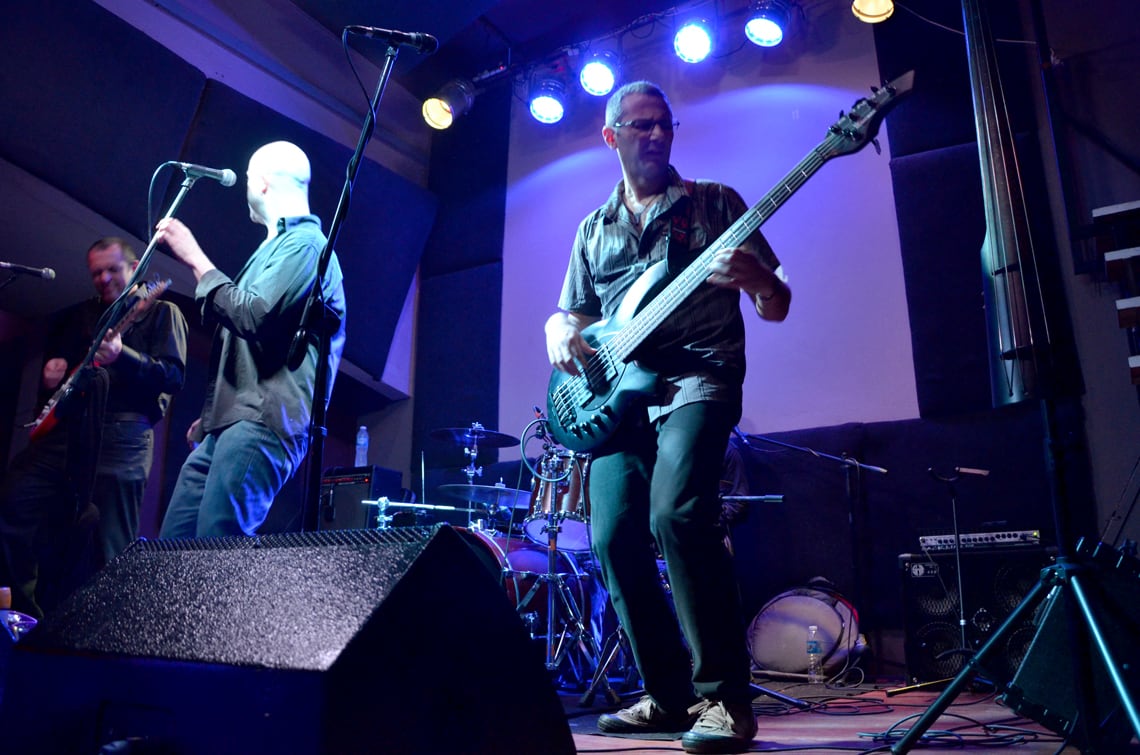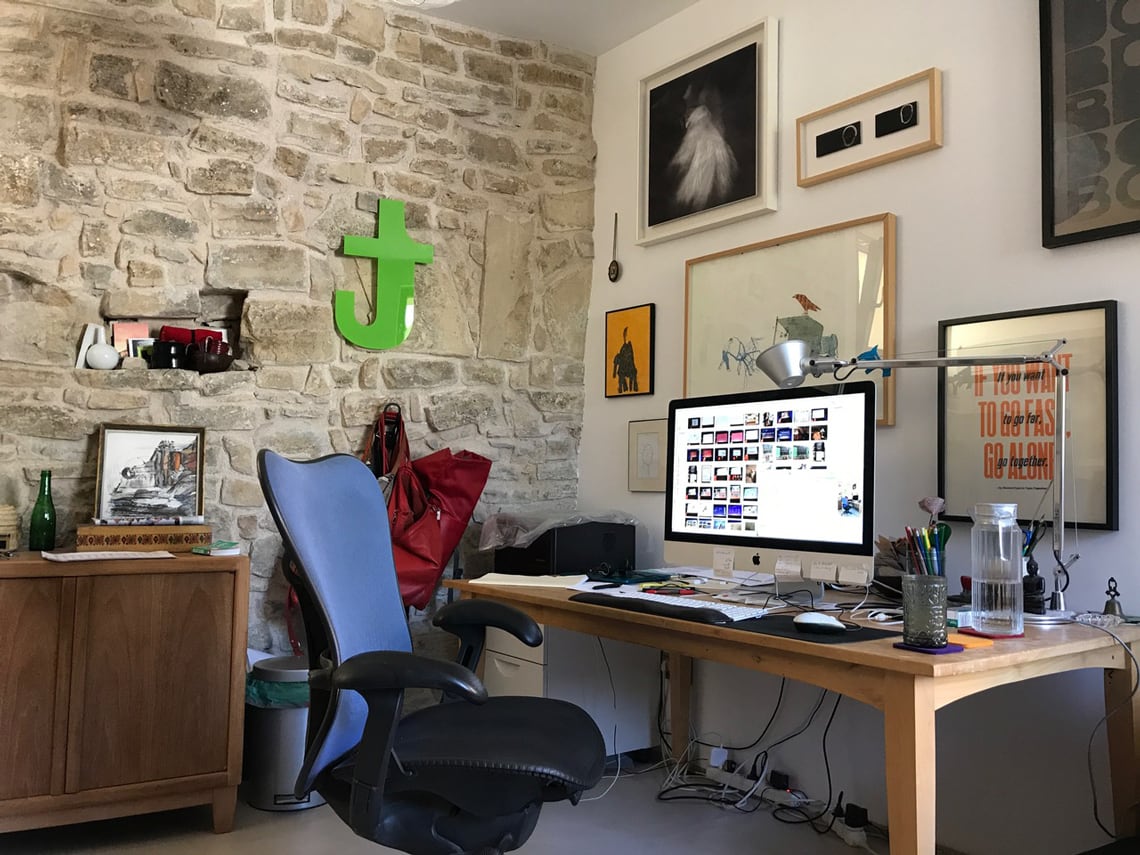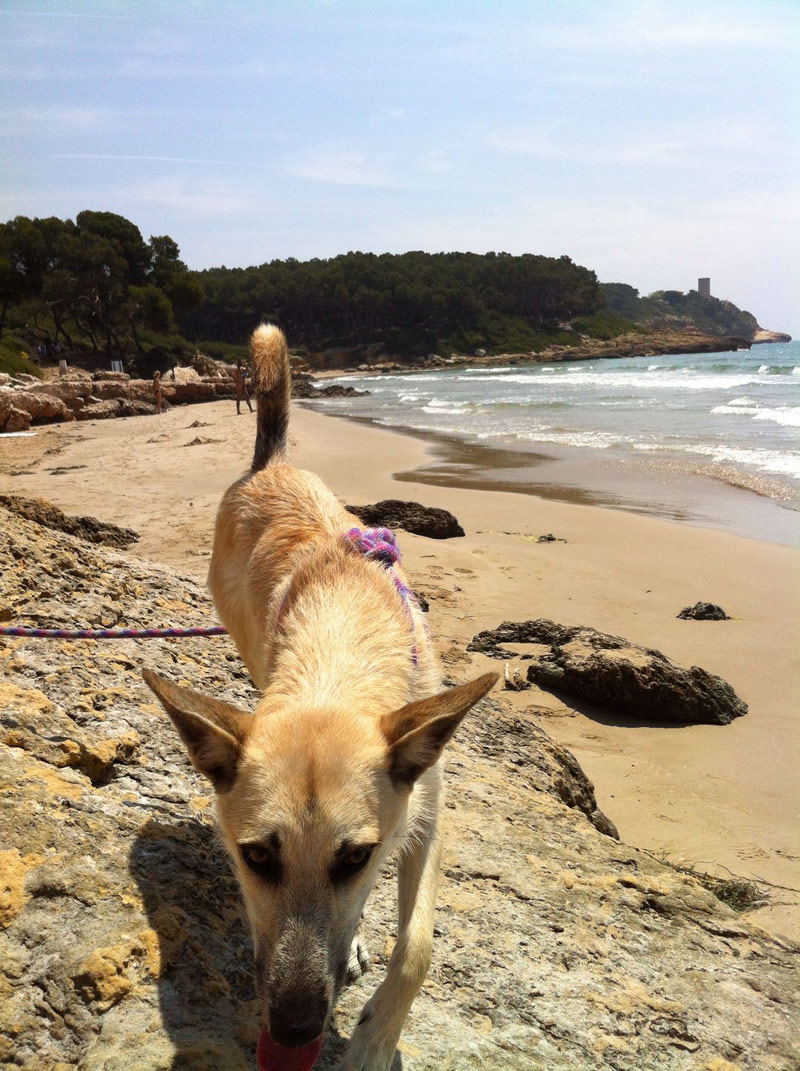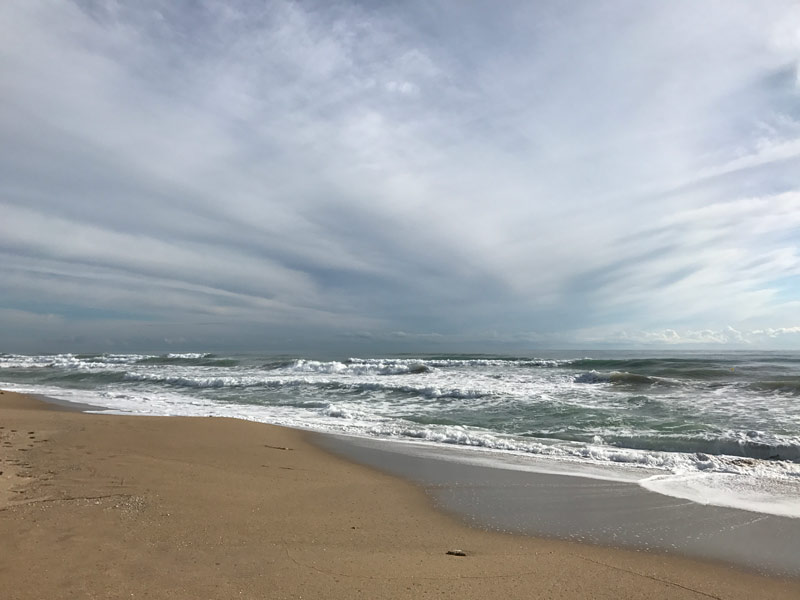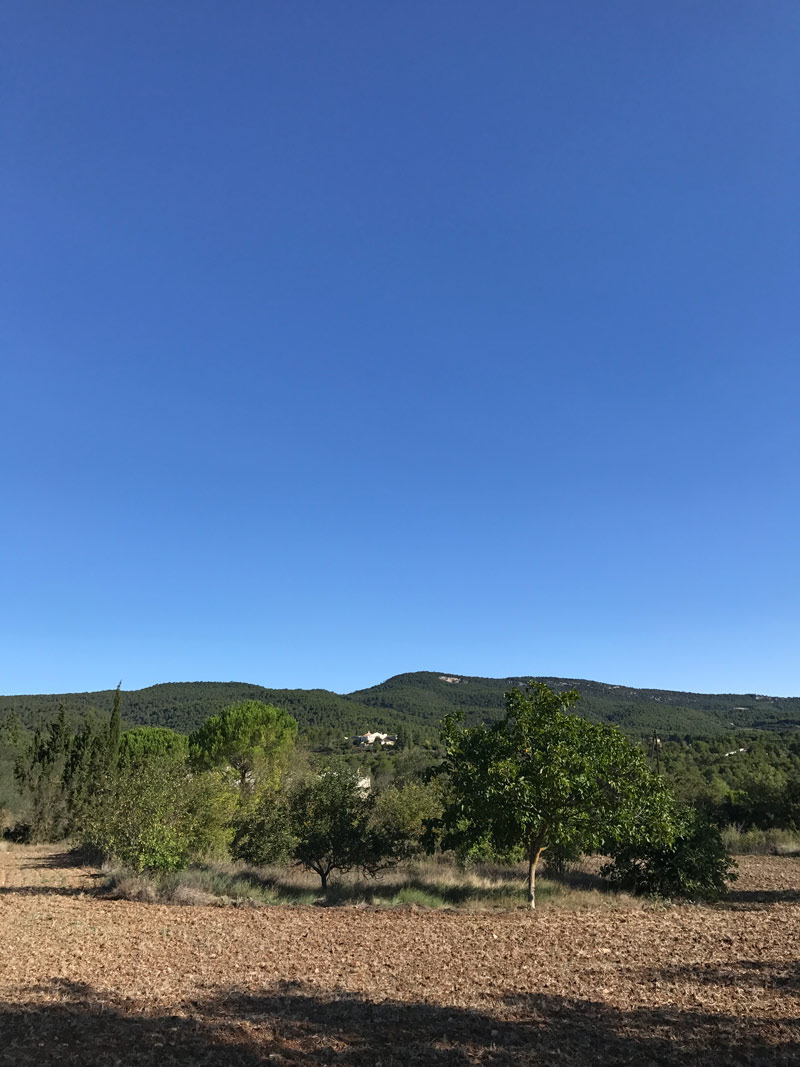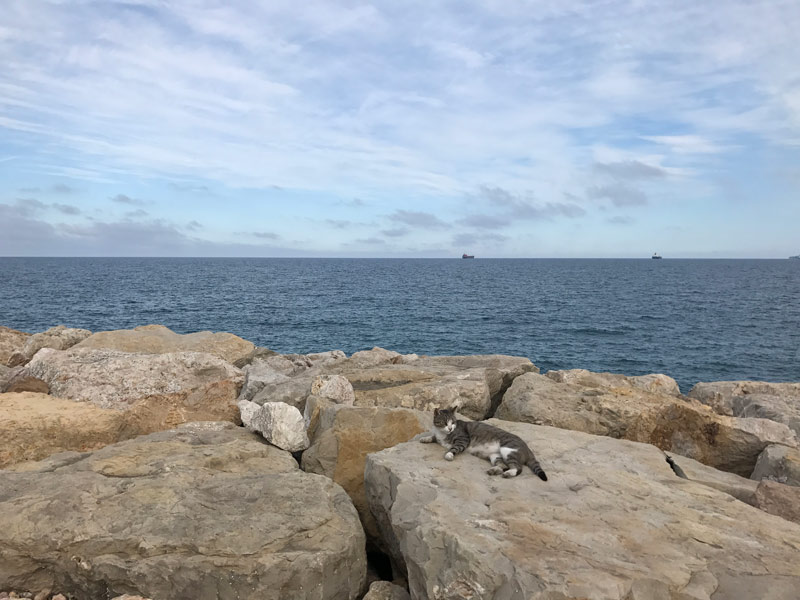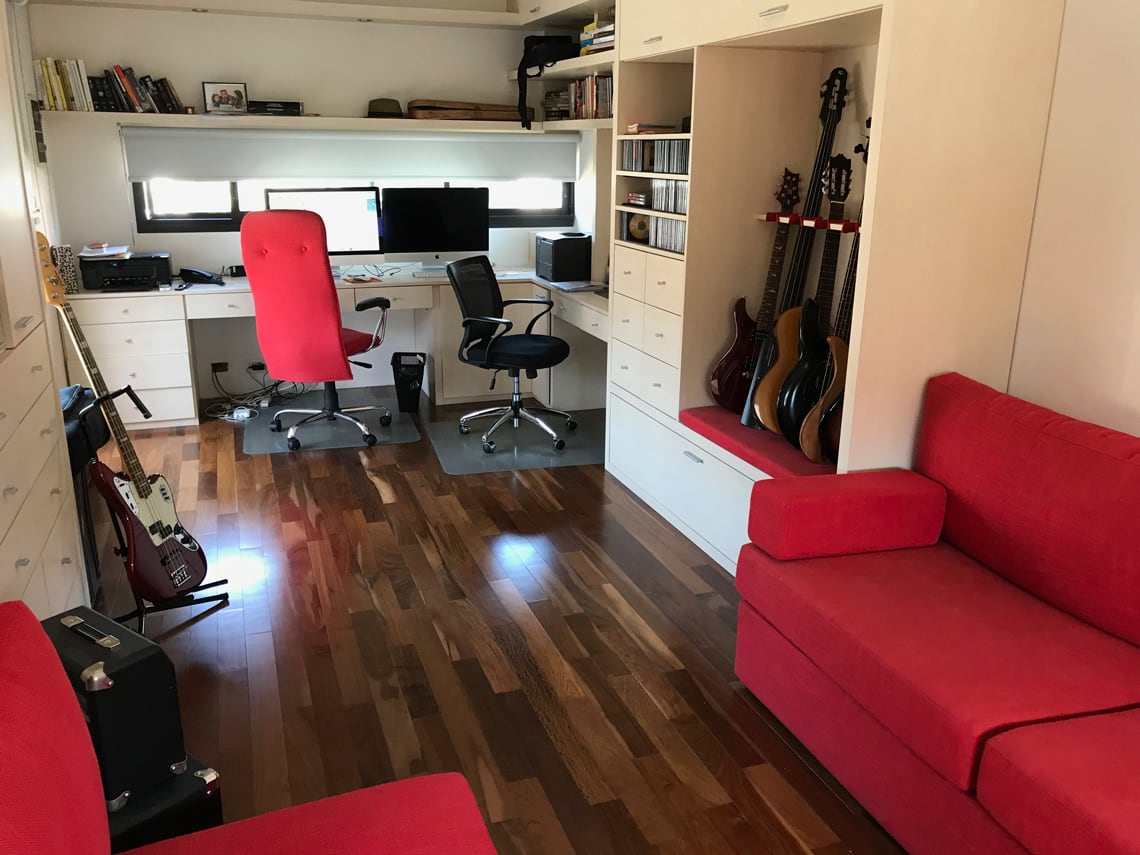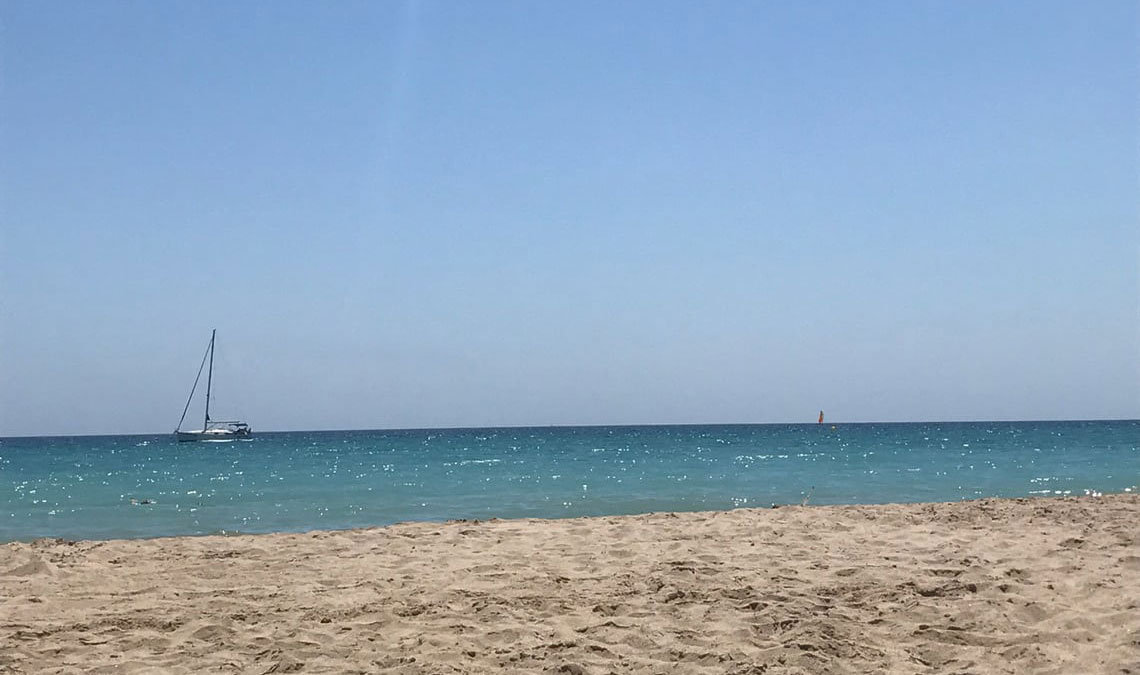
Meet Veronika and José
José Scaglione and Veronika Burian are TypeTogether’s multitalented founders. From diverse backgrounds they entered the world of typefaces and were immediately awarded for the thoughtfulness of Athelas and Maiola, and the comprehensiveness of Abril, Portada, and Tablet Gothic. Their catalogue has provided headlines for discerning designers and the voice of respected international brands. But the professional successes are only part of the story. It’s only fair to continue our team introduction series by highlighting the company’s co-founders.
Veronika Burian
Veronika is, with José, the founder of TypeTogether. She designs, organises, answers countless emails, and takes care of all of us. Despite having indecipherable handwriting, she has designed, according to her friends, one of the most beautiful calligraphic typefaces — Maiola. If she’s teaching, she’s moving; gesticulating is as automatic as breathing to her. And if she’s travelling, it’s probably because she’s preparing to teach or exploring on holiday.
Veronika is a rare breed: a true traveller who betters herself by discovering others; an instinctual designer; an active woman who loves climbing, hiking, and swimming; and an animal lover, especially of her wonderful dog Zappa.
1 · Where is your office located?
In Munich and the countryside close to Santes Creus, Cataluña.
2 · In what countries or cities have you lived?
Czech Republic, Germany, Austria, Italy, UK, USA, and Spain. I’ve been quite fortunate to see many places around the world.
·  What kind of music do you listen to, if you do, while working?
Jazz, psychedelic rock (’60s/’70s), and funk.
·  Who is your everyday hero?
People who live consciously and with principles and are prepared to make sacrifices to turn this earth into a better place for everyone.
·  What are your love/hate glyphs when designing?
I like to draw ‘k, a, s’ and have quite a dislike for the numeral 2.
·  What is your hobby when not designing fonts?
I don’t have a hobby as such, but I go climbing, swimming, hiking, dancing, and do felting and photography.
·  You have one opportunity to do something different in your life. What do you choose?
Contemporary dance performing artist, or photographer.
·  What is your favourite word?
Seelenruhe, which approximately means “calm of the soul”.
· What is the most amazing script you have worked with and why?
I would not say Armenian is the most amazing script, but I do have some inexplicable affinity for it. It might relate to my eastern roots, or my last name that is supposedly Armenian from a long time ago, or… many other reasons. It’s something I can’t put into words.
Zappa.
View on the morning walks with Zappa.
Beach life in Tarragona.
Vik’s ’messy desk’ at her home studio. The backwards 't' was discarded by a London sign maker as wrongly made. It has been with her ever since.
José Scaglione
José Scaglione is the other talented founder of TypeTogether. He has a habit of changing his title every few months, and it’s always somehow a mix of sci-fi references and font nerdiness. He loves to have a few hours for open air grilling and, as far as business goes, is more into asking questions than forcing agreed answers.
1 · Where is your office located?
My studio is on the top floor of my house. If I am late, it means there was a traffic jam on the stairs.
2 · In what countries or cities have you lived?
Argentina, UK, and USA.
·  What kind of music do you listen to, if you do, while working?
That depends on the kind of work I am doing. For general design and administrative work, I like listening to anything from soul and funk to rock. But I prefer complete silence when I research or write.
·  Can you name three fonts you love that were designed by others?
Of course I can’t! I am a type designer. There’s some kind of etiquette rule against that.
·  What are your love/hate glyphs when designing?
For a long time I argued that there were many reasons why ‘a’ should be one of the first glyphs to be designed. I argued that it has a very high repetition rate in most languages, that it has features that can be translated to other glyphs, and that it was complex enough to test how bold a font can get. Then I came to the conclusion that I simply love drawing that letter.
·  What is your hobby when not designing fonts?
Rocking with my band!  :)
·  You have one opportunity to do something different in your life. What do you choose?
I would probably try to be a chef.
· What is the most amazing script you have worked with and why?
Georgian. I think it surprised me. It looked quite simple and it has a very small character set, but it was unexpectedly hard to do it right.
José and the band.
José’s home office, free of traffic jams.